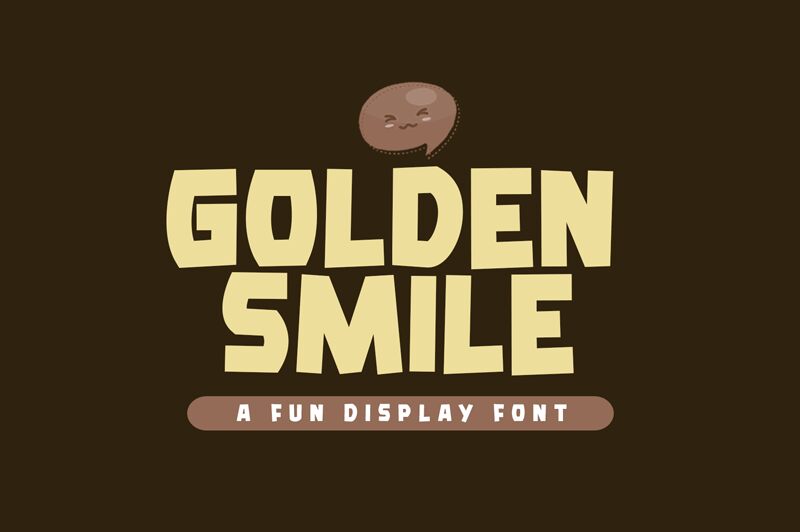
Golden Smile
Golden Smile is a bold and fun display font designed by Khurasan that is perfect for adding personality to any project. With its semi-expanded width, this typeface exudes a playful charm that is perfect for anything from children's books to product packaging. Whether you're designing a logo or creating promotional materials, Golden Smile is sure to make your message stand out. Its bold weight ensures maximum visibility, while its cheerful style adds an extra touch of flair. From posters and flyers to social media graphics and greeting cards, this font is ideal for any project in need of a little extra pizzazz!